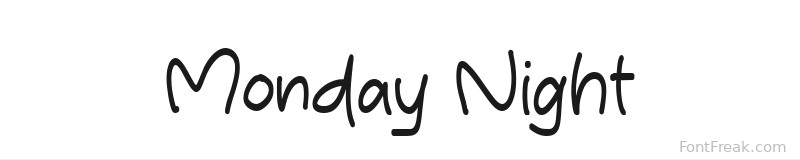
Monday Night
Monday Night by MJType is a delightful handwritten font that captures the essence of casual elegance. This font features a playful yet refined style, making it a versatile choice for a variety of design projects. The strokes exhibit a medium weight with soft curves, providing a friendly and approachable feel. The spacing is well-balanced, ensuring legibility while maintaining a relaxed, informal aesthetic. Decorative elements are minimal, allowing the natural flow of the letters to shine through, which adds to the font's charm.
This font is perfect for several specific use cases. It excels in creating wedding invitations, where its whimsical nature can convey romance and joy. Additionally, the Monday Night font works wonderfully for movie posters, particularly for independent films or comedies, where a touch of personality is essential. Restaurant menus can benefit from its inviting appearance, making diners feel welcome and excited about their experience. Furthermore, content creators will find it ideal for social media graphics, where eye-catching designs are crucial for audience engagement.
What sets the Monday Night font apart is its ability to combine playfulness with sophistication, making it suitable for a wide range of applications. The font’s friendly demeanor encourages connection and warmth, ensuring that any project featuring it will leave a lasting impression. For those looking to elevate their designs, the Monday Night font free download offers an excellent opportunity to do just that.